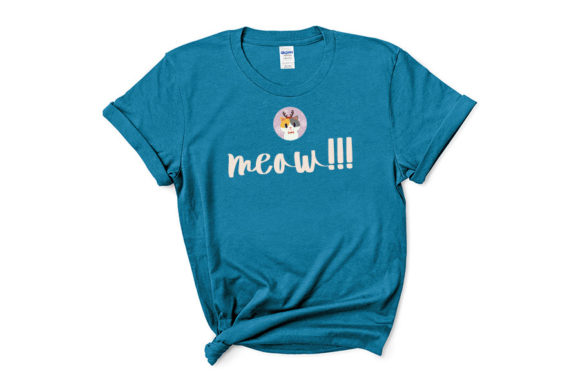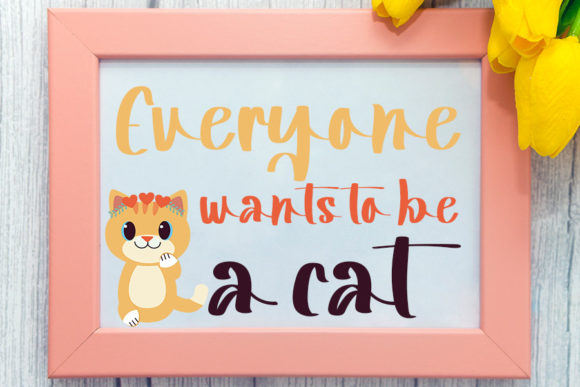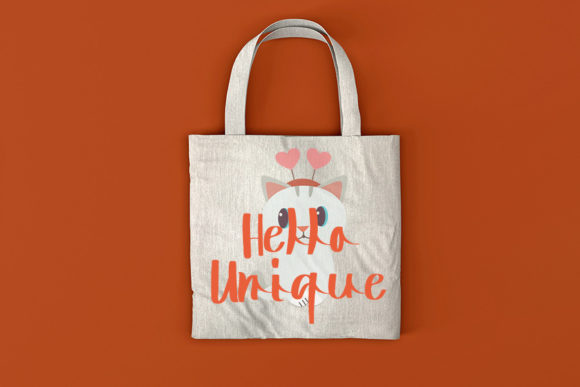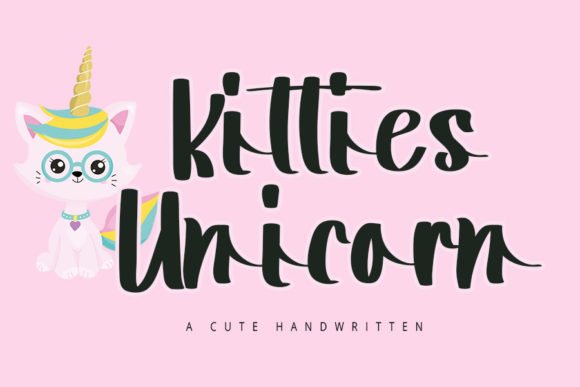
Introduction to Kitties Unicorn Font
Kitties Unicorn is a flowing handwritten font, described by an elegant touch, perfect for your favorite projects.